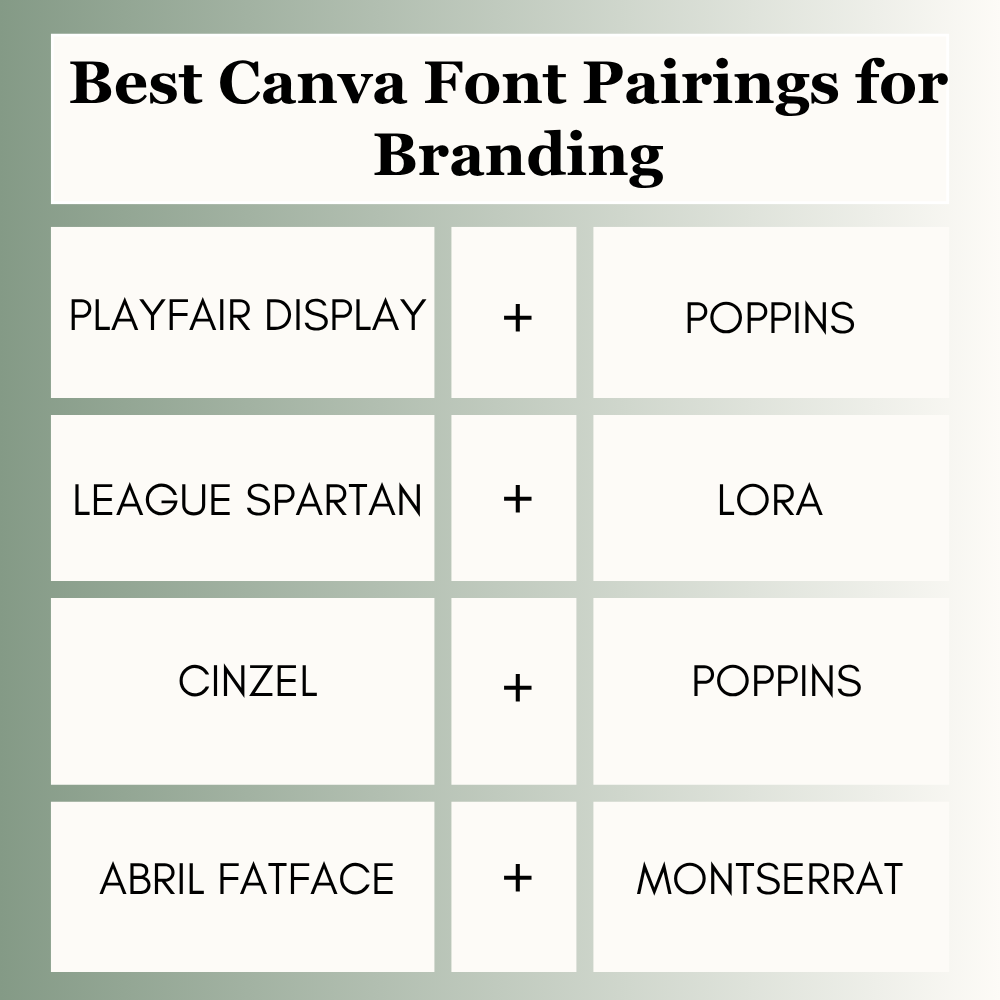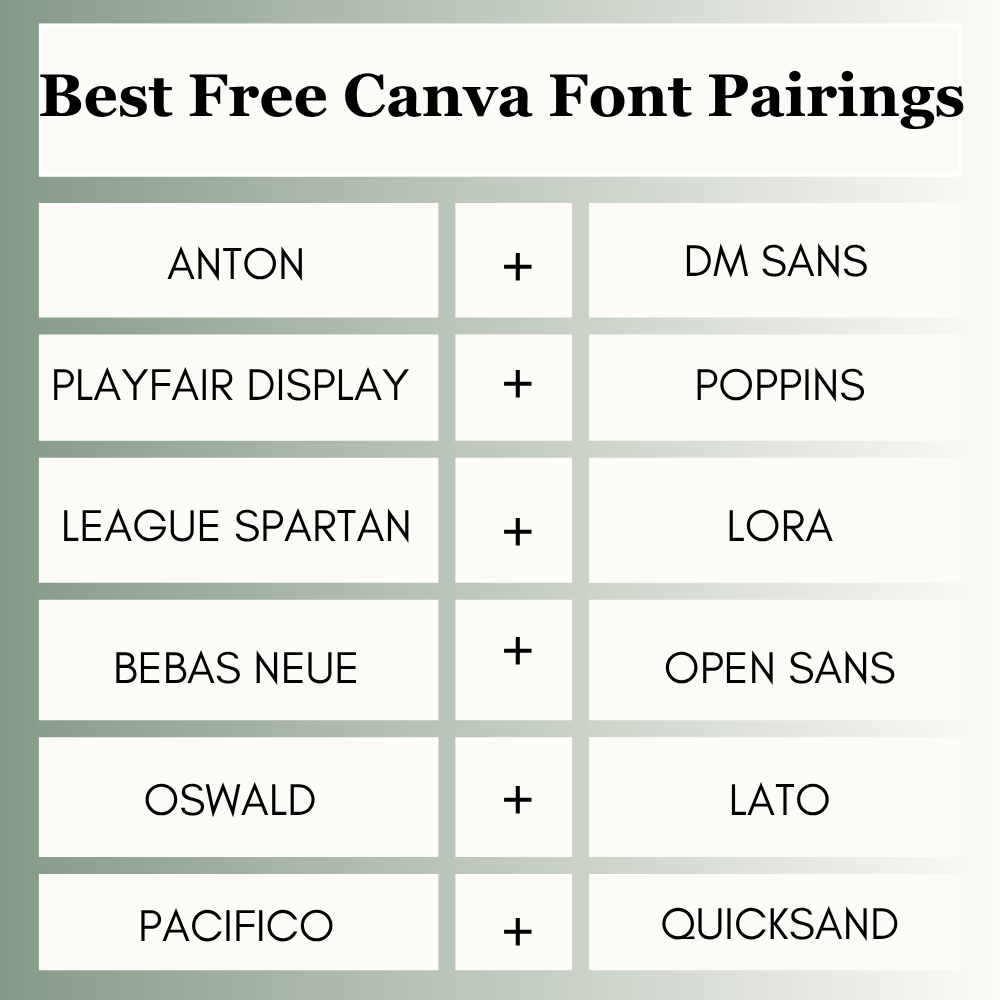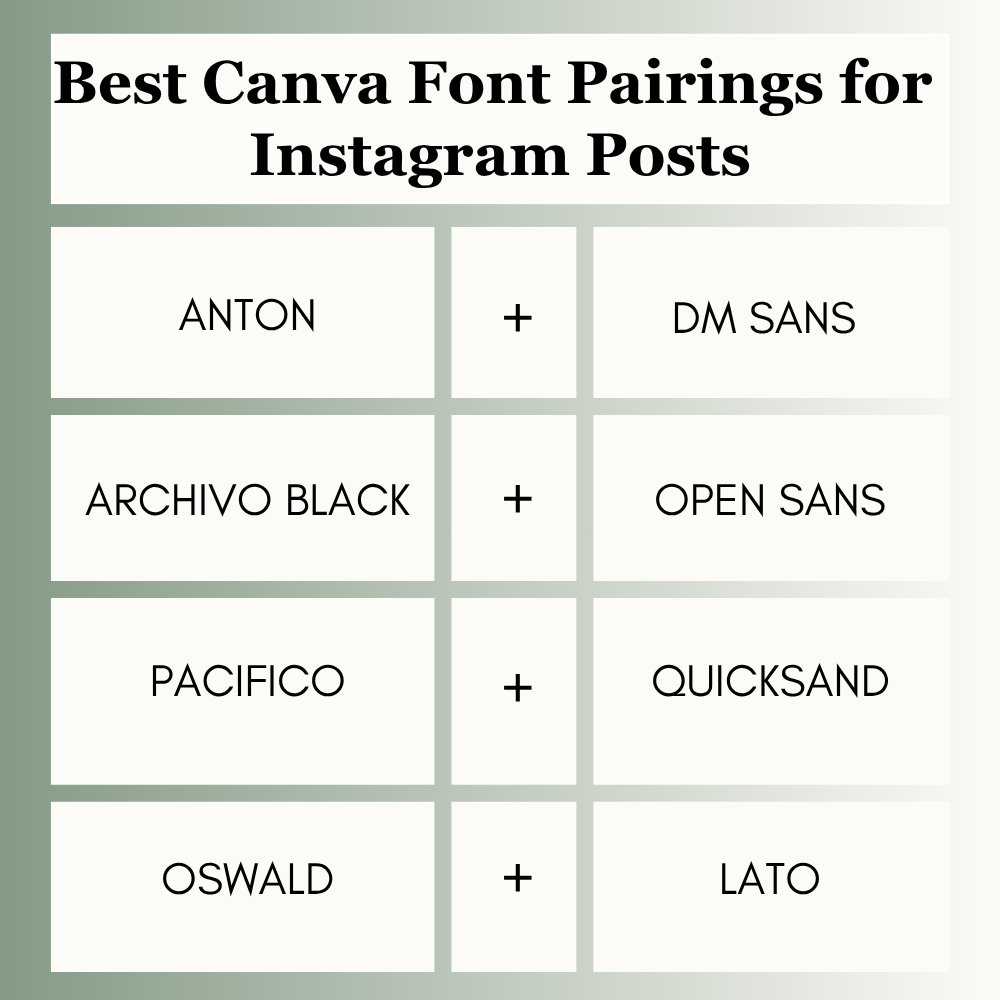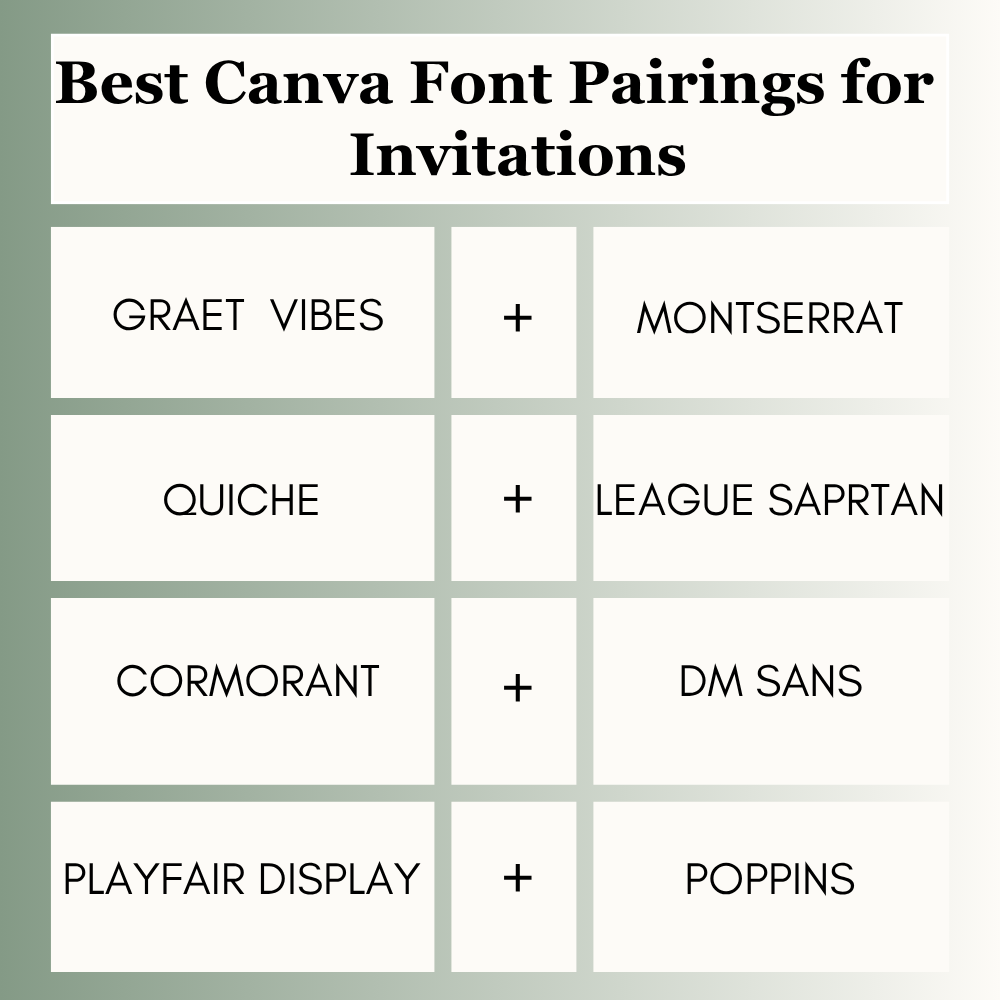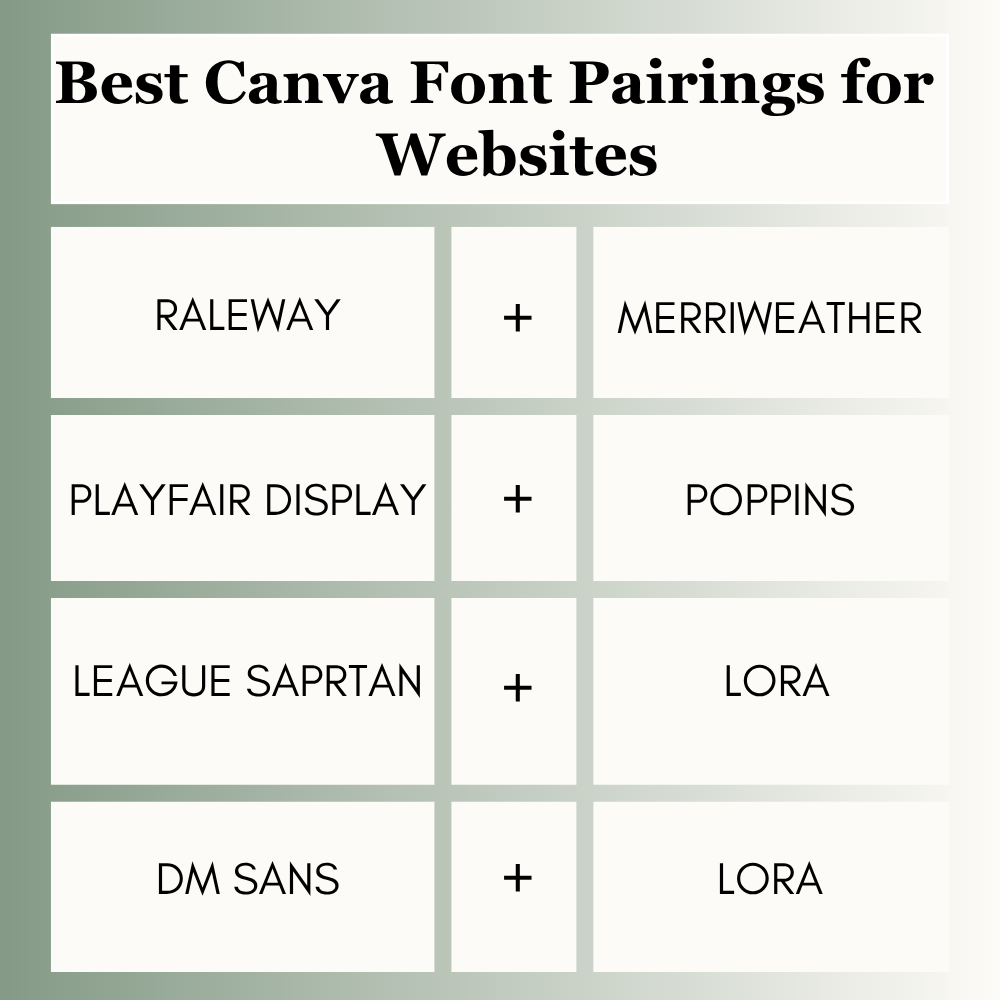
Best Canva Font Pairings (Free Combinations That Actually Work)
You don’t need a design degree to create visuals that demand attention you just need a shortcut to the combinations that actually work in the real world. Instead of forcing you to memorize typography rules or stare at blank canvas templates, we have curated a masterlist of the best Canva font pairings built for speed and visual impact. In this guide, you’ll find exact font duos that bring immediate clarity and style to your content, making your workflow faster than ever.
Quick Answer
The best Canva font pairings are Playfair Display + Poppins, Anton + DM Sans, Great Vibes + Montserrat, League Spartan + Lora, Pacifico + Quicksand, Bebas Neue + Open Sans, Abril Fatface + Montserrat, Raleway + Merriweather, Cinzel + Poppins, and Oswald + Lato. These combinations work well for branding, Instagram posts, websites, presentations, invitations, and marketing graphics because they balance style with readability. If you’re exploring more Canva typography, these related guides are worth checking out:
What Makes a Good Font Pairing?
A strong font pairing should do these things:
• Create contrast without clashing
• Stay easy to read
• Match the design mood
• Work well on mobile and desktop
• Keep the layout balanced
A common formula is:
• One strong heading font
• One clean body font
If both fonts fight for attention, the design usually feels messy.
Best Canva Font Pairings
Font PairingBest ForStyleWhy It Works
Playfair Display + PoppinsBranding, WebsitesElegant ModernStrong contrast and premium feel
Anton + DM SansSocial Media, AdsBold CleanHigh readability and impact
Great Vibes + MontserratInvitationsRomantic ElegantStylish and balanced
League Spartan + LoraBusiness BrandsProfessionalTrustworthy and clean
Pacifico + QuicksandFun BrandsPlayful FriendlyWarm personality
Bebas Neue + Open SansPostersBold ModernStrong headline support
Abril Fatface + MontserratFashion BrandsLuxury ModernHigh-end visual style
Raleway + MerriweatherBlogsEditorial CleanGreat reading experience
Cinzel + PoppinsPremium BrandingClassic ModernElegant authority
Oswald + LatoMarketing GraphicsClean BoldEasy to scan
Cormorant + DM SansBeauty BrandsElegant SoftStylish contrast
Archivo Black + Open SansPromotionsHeavy BoldGreat conversion focus
Lobster + MontserratFood BrandsFriendly ScriptFun but readable
Teko + PoppinsFlyersCondensed ModernSpace-saving impact
Quiche + League SpartanLuxury InvitesPremium RomanticStrong visual identity
Best Canva Font Pairings for Branding
Brands need trust and consistency. The right pairing can also make a logo feel more professional, so choosing the right Canva fonts for logos is important.
Best picks:
• Playfair Display + Poppins
• League Spartan + Lora
• Cinzel + Poppins
• Abril Fatface + Montserrat
Best Canva Font Pairings for Instagram Posts
Social users scroll fast, so clarity matters.
Best picks:
• Anton + DM Sans
• Archivo Black + Open Sans
• Pacifico + Quicksand
• Oswald + Lato
Best Canva Font Pairings for Websites
Websites need readability first.
Best picks:
• Raleway + Merriweather
• Playfair Display + Poppins
• League Spartan + Lora
• DM Sans + Lora
Best Canva Font Pairings for Invitations
Invites should feel stylish and memorable.
Best picks:
• Great Vibes + Montserrat
• Quiche + League Spartan
• Cormorant + DM Sans
• Playfair Display + Poppins
Best Free Canva Font Pairings
If you use Canva Free, you still have many strong options.
Top free picks:
• Anton + DM Sans
• Playfair Display + Poppins
• League Spartan + Lora
• Bebas Neue + Open Sans
• Oswald + Lato
• Pacifico + Quicksand
You do not need Canva Pro to create professional typography.
Canva Font Pairing Rules for Beginners
Use this quick method:
1. Mix Personality + Simplicity
Use one stylish font and one clean font.
2. Avoid Similar Fonts
Two fonts that look almost the same can feel boring.
3. Check Weight Contrast
Use bold heading + lighter support text.
4. Test on Mobile
Always preview your design on phone size.
5. Keep It Consistent
Use the same pairing across brand assets.
Common Mistakes to Avoid
Many Canva users make these simple mistakes:
• Using too many fonts
• Pairing two decorative fonts
• Choosing thin fonts for mobile graphics
• Ignoring spacing
• Using script fonts for paragraphs
Expert Tip
After testing font combinations across client graphics, ads, logos, and content assets, I have found that bold heading + clean support text usually wins more than fancy combinations. If you are unsure, start with Playfair Display + Poppins or Anton + DM Sans. Clear designs usually perform better than overdesigned ones.